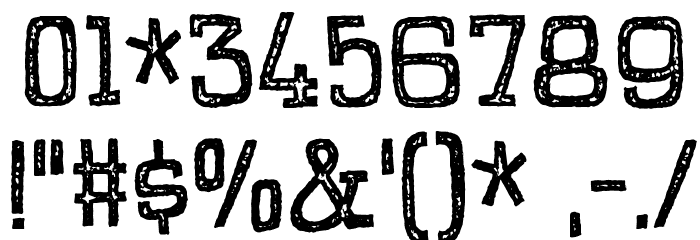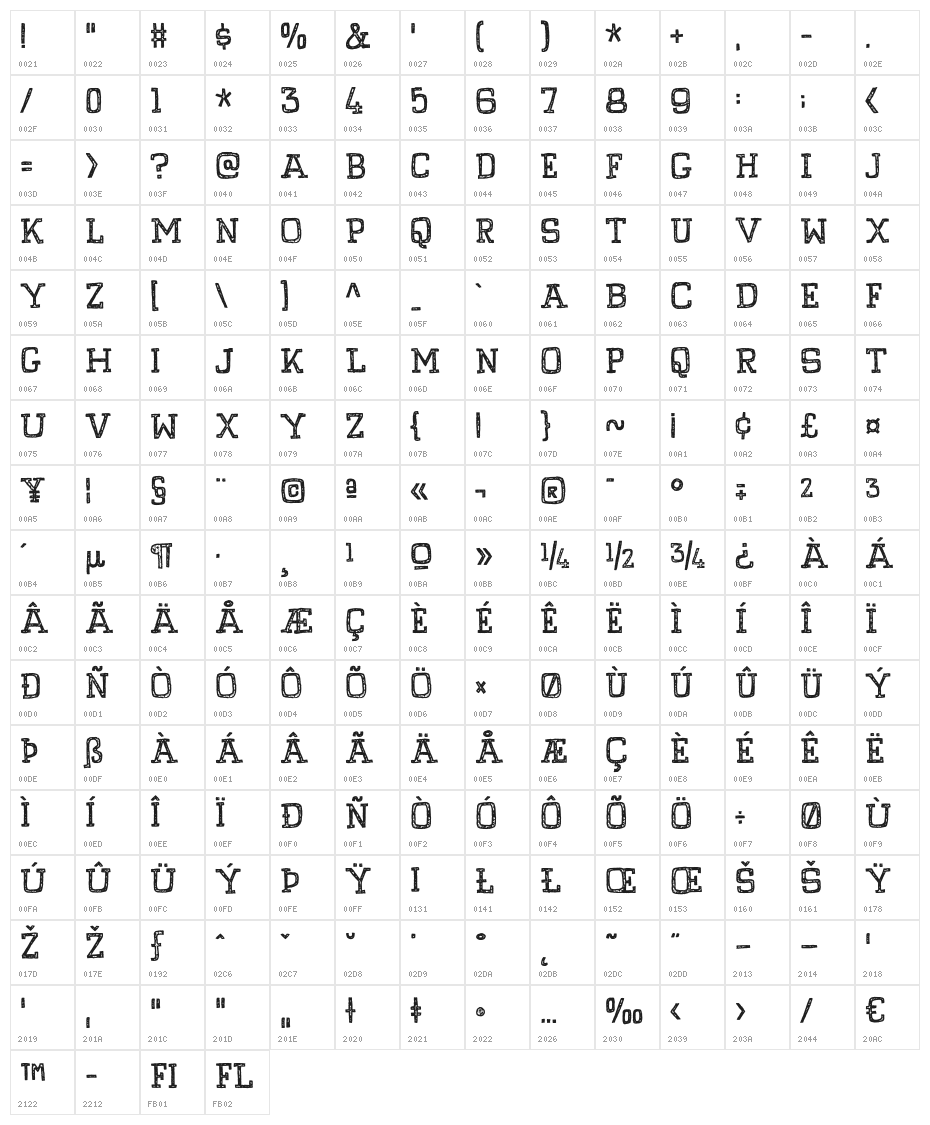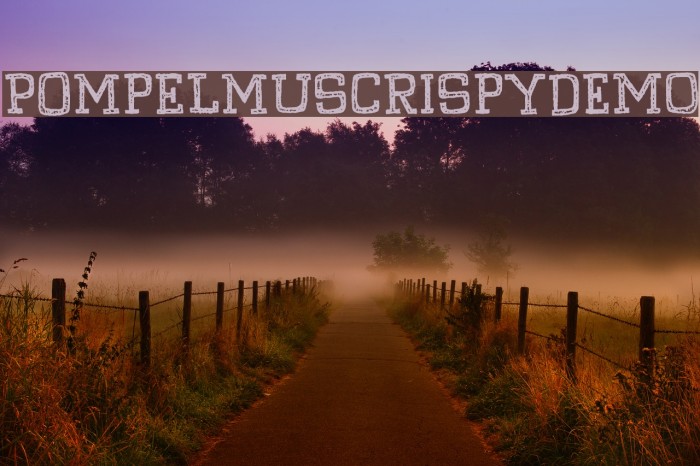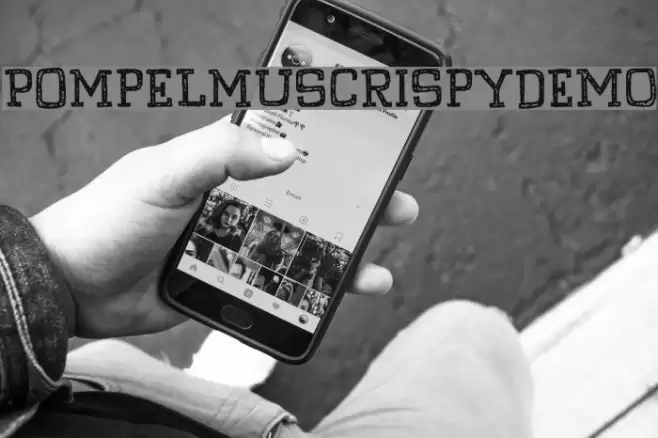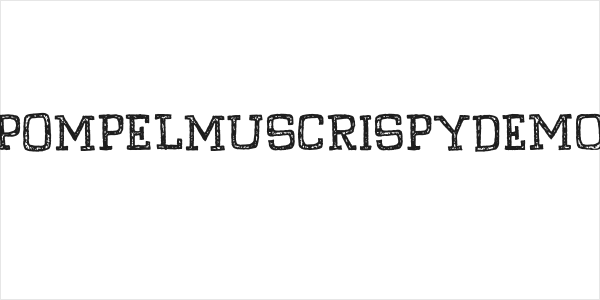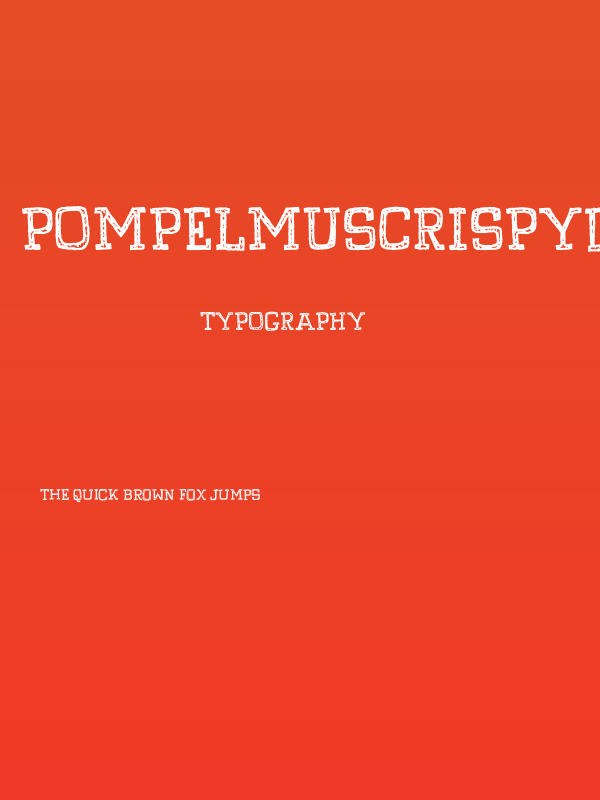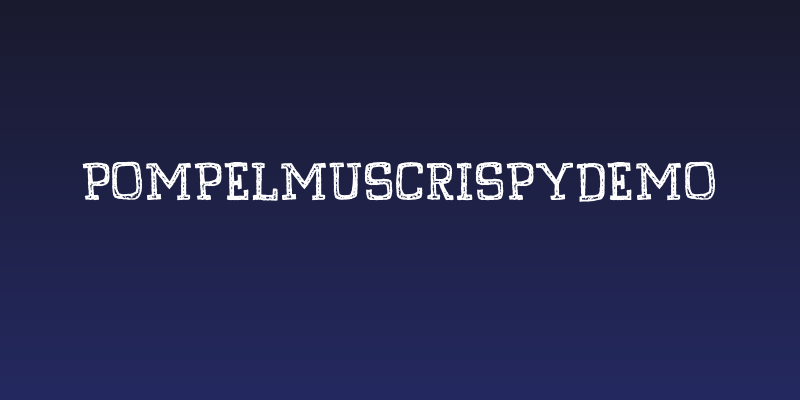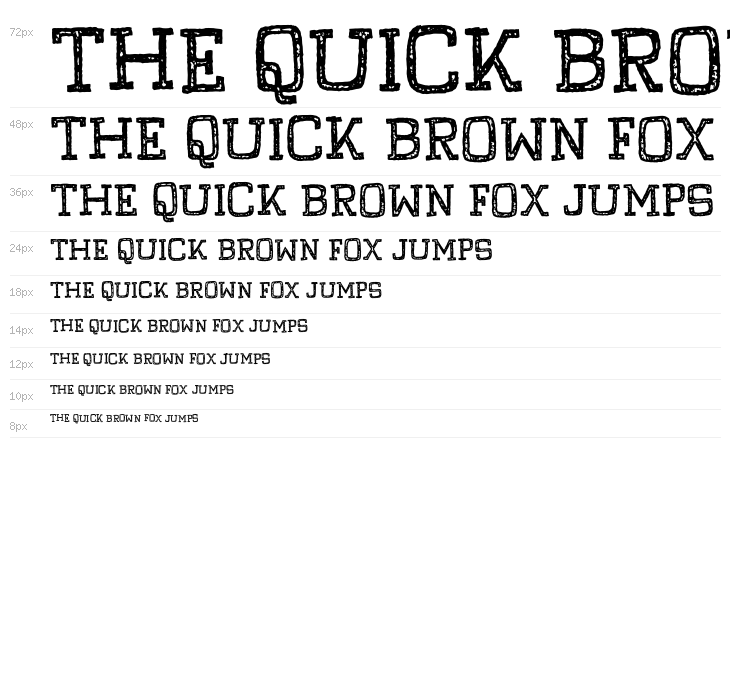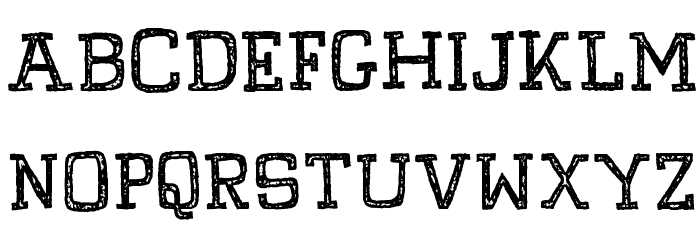
PompelmusCrispyDEMO Font
PompelmusCrispyDEMO Description
This font features a bold, decorative style with a distressed, textured appearance that gives it a vintage and handcrafted feel. The uppercase and lowercase letters are designed with a consistent width, creating a uniform look across the alphabet. The numerals and special characters maintain the same distressed aesthetic, adding to the overall cohesive design. The font's boldness and unique texture make it stand out, ideal for projects that require a strong visual impact. Its playful yet rugged appearance is suitable for creative designs that aim to capture attention.
| Overall Style | Vintage, Decorative |
| Proposed Projects | Ideal for posters, branding, packaging, and any design requiring a bold, vintage look. |